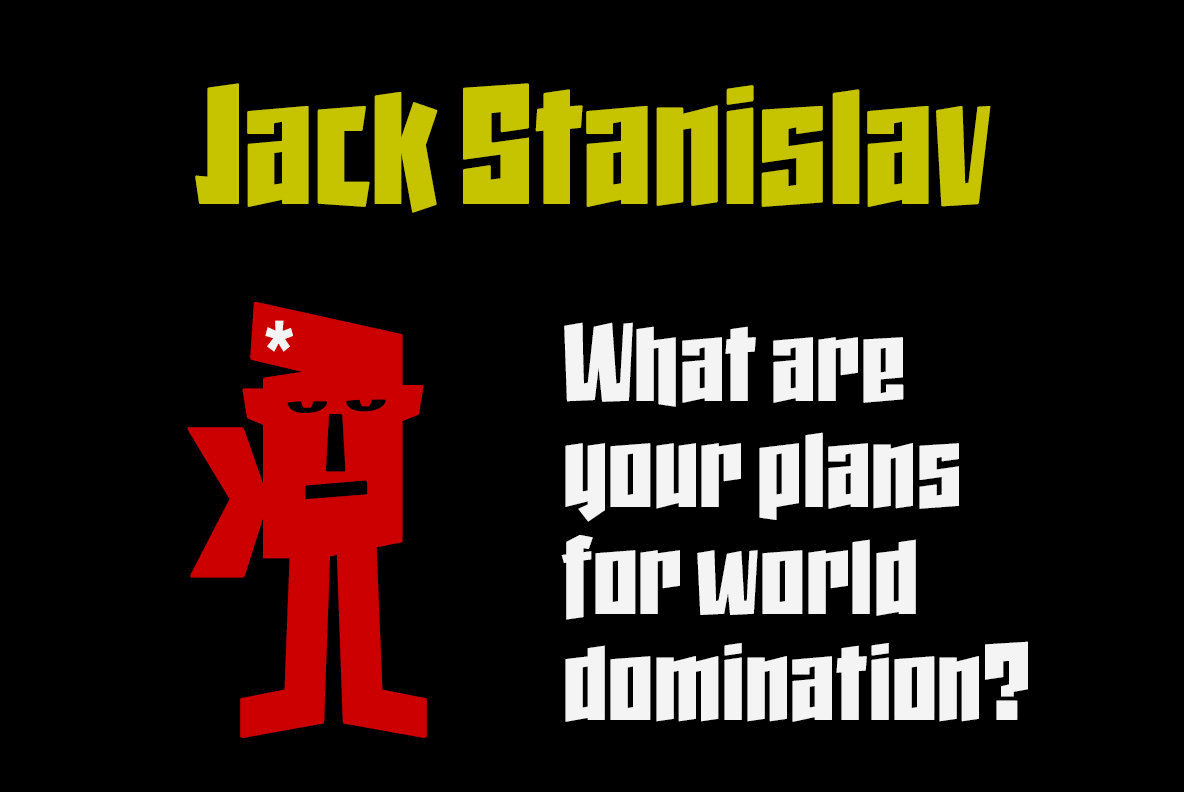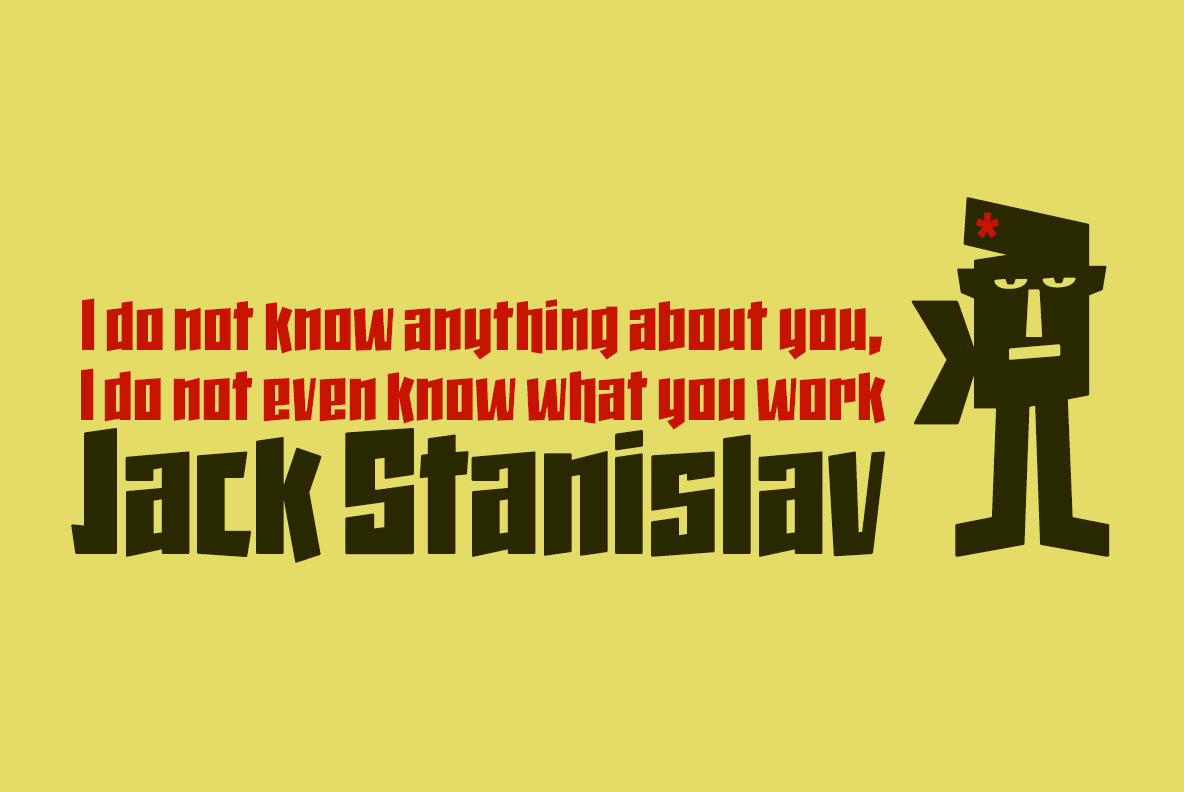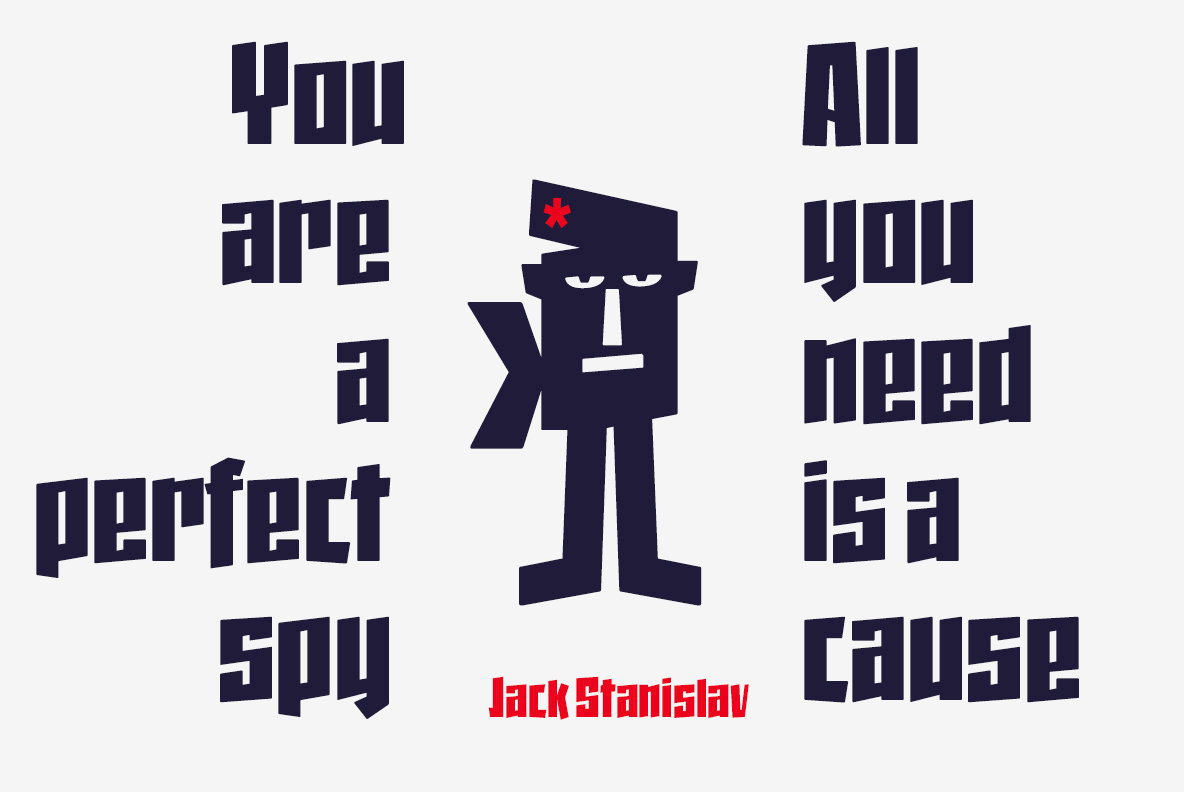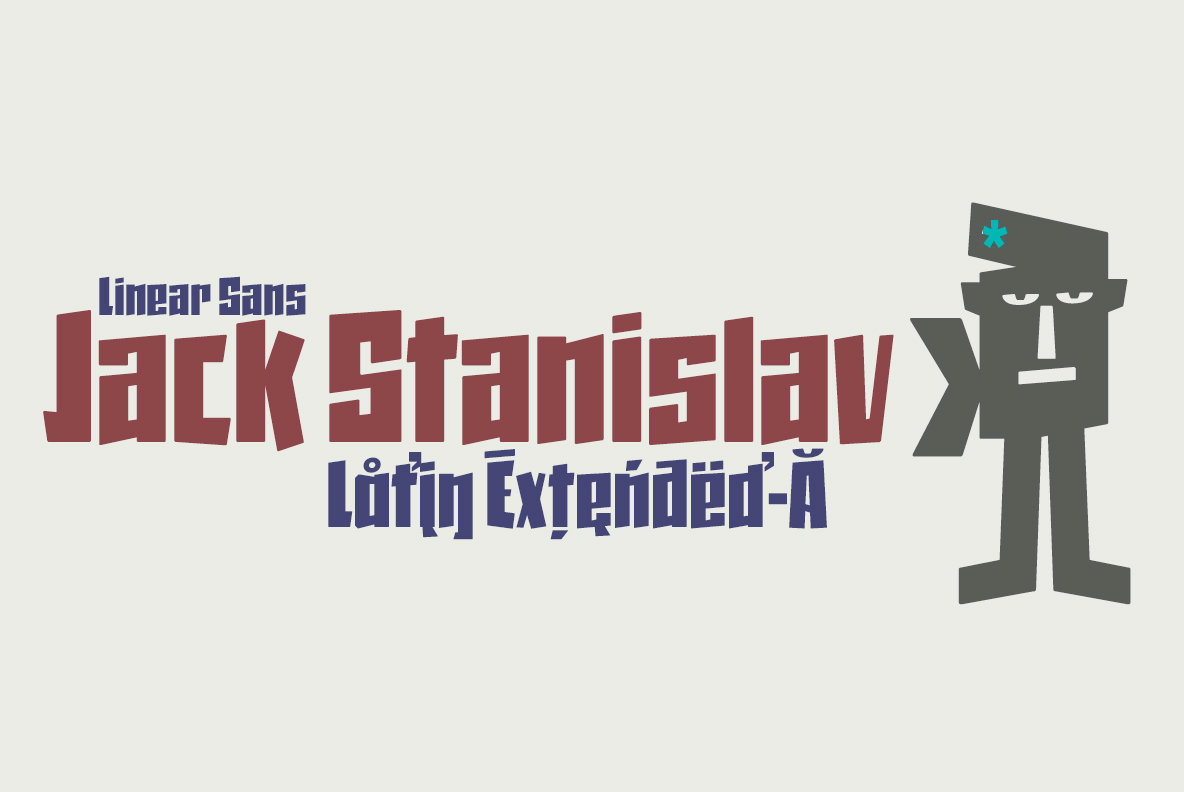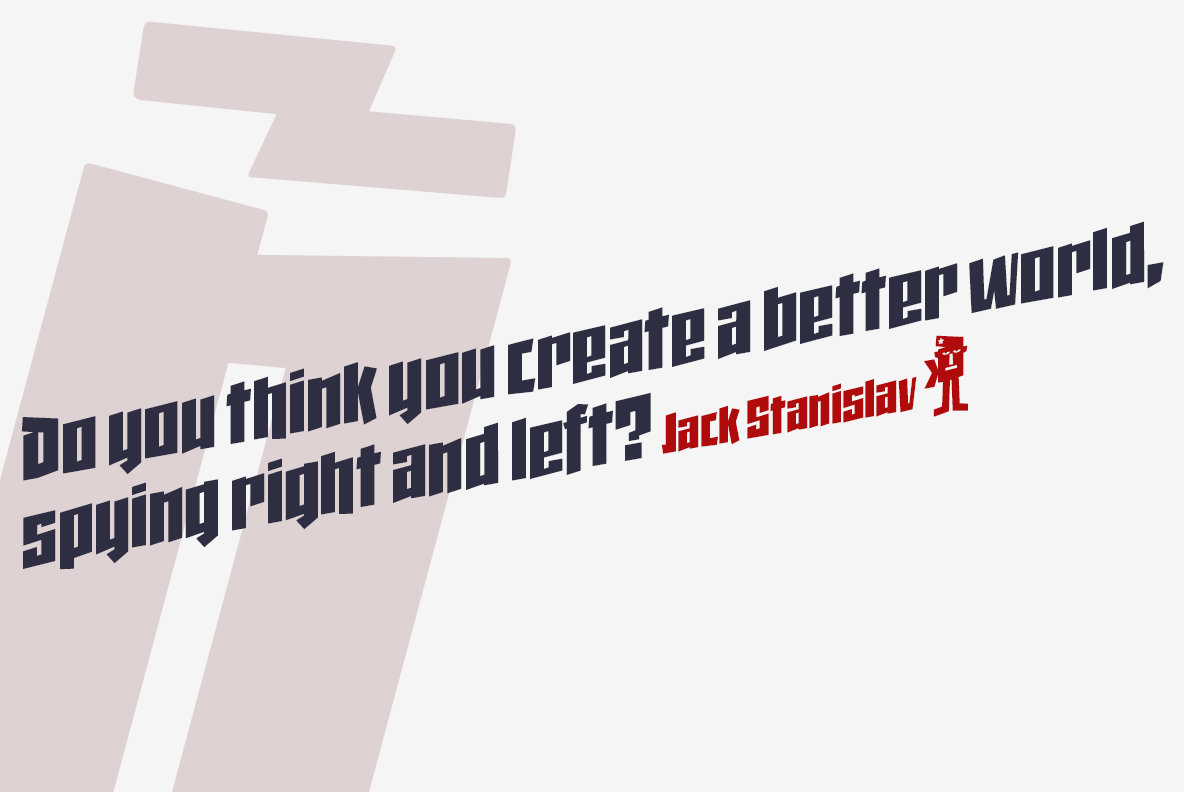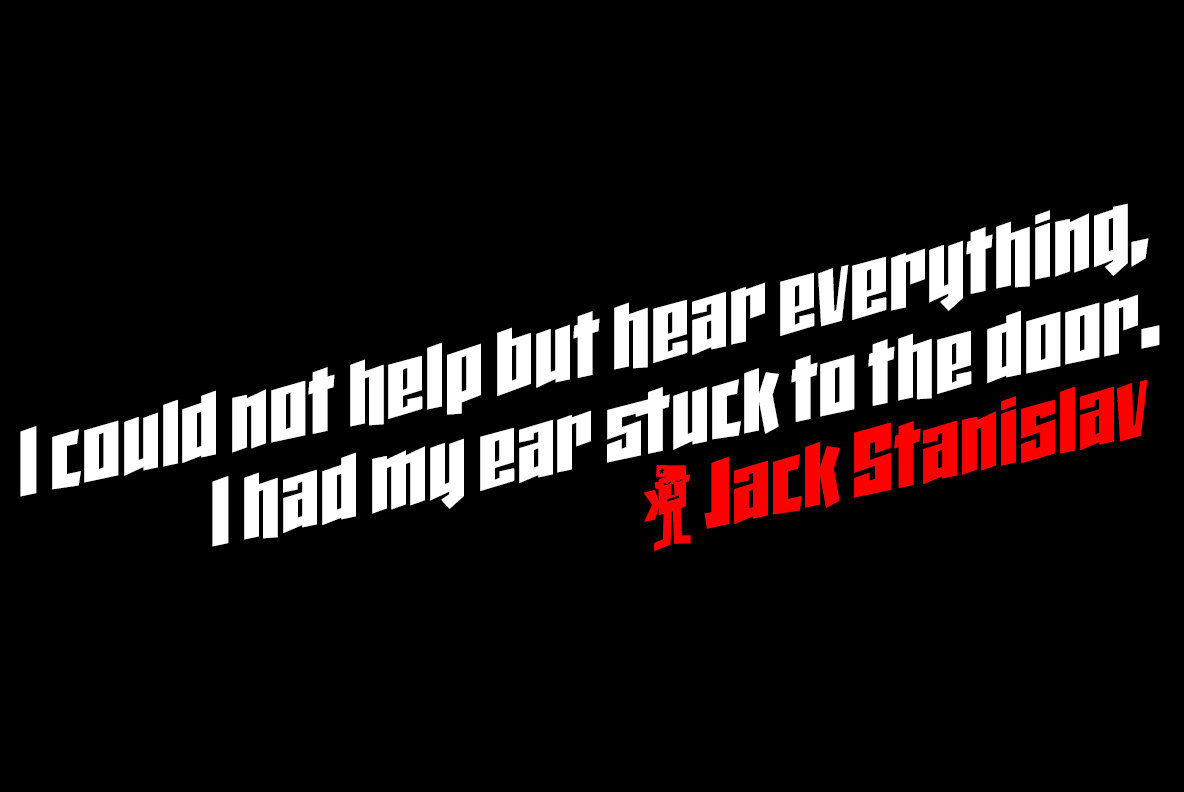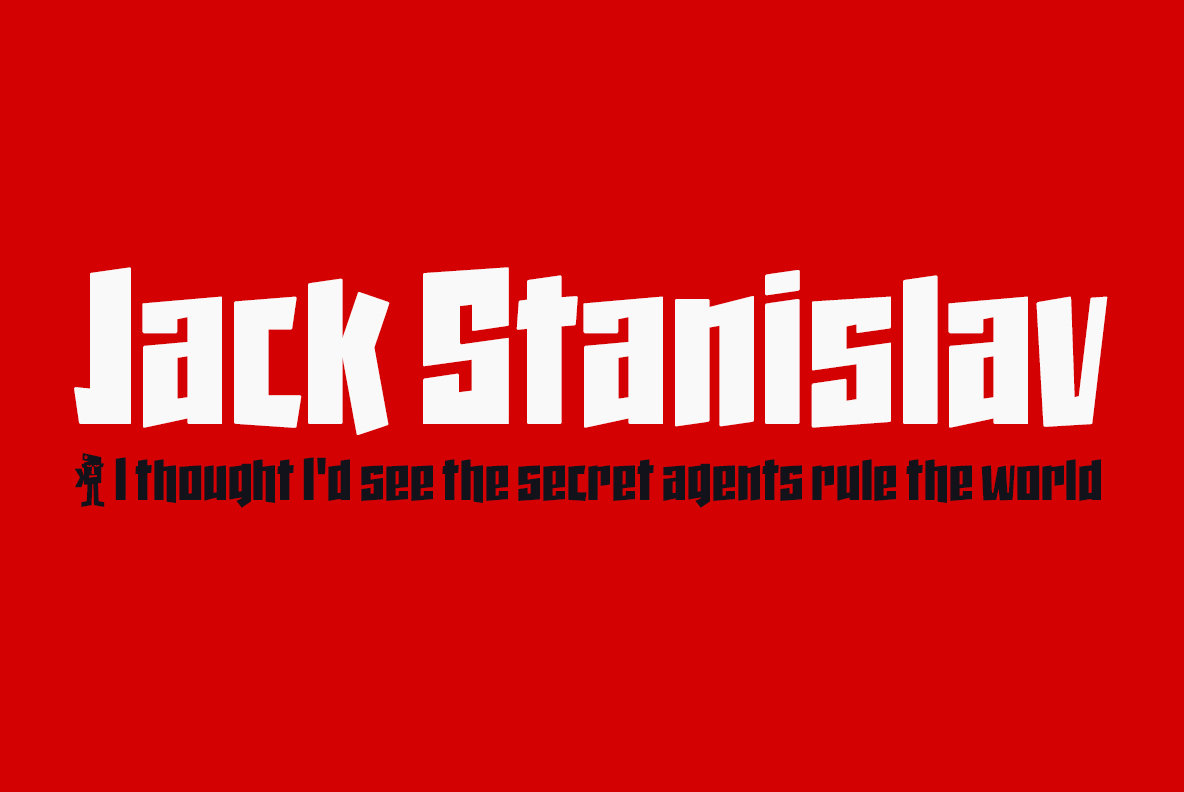
Jack Stanislav Font
Jack Stanislav
Very condensed typography, thick line and fun look for headlines and advertising where you are looking for saving space and originality at the same time.
The upper inclination of the letters, the combination of horizontal with inclined forms, the ascending and descending short, and the lower elongation of some antlers will allow you to print varied styles with a lot of movement according to the context of the design.